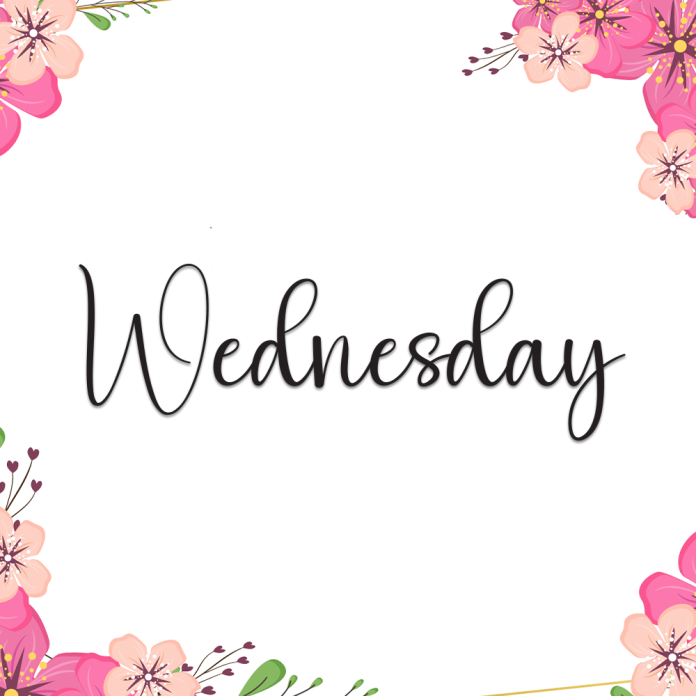
Wednesday is a relaxed and charming handwritten font that feels just like a midweek note jotted down in your favorite journal. With smooth, flowing strokes and a friendly, personal touch, this font brings warmth and authenticity to every word.
Perfect for planner headers, greeting cards, quotes, lifestyle branding, and social media content, Wednesday makes your message feel natural and heartfelt.
Friendly, handwritten aesthetic
Soft curves and fluid lines
Ideal for casual designs and personal projects
Full set of uppercase & lowercase characters
Numbers, punctuation, and multilingual support
Make your midweek moments magical with the handwritten elegance of Wednesday.